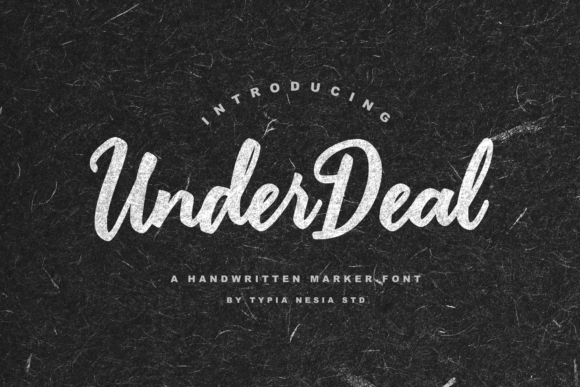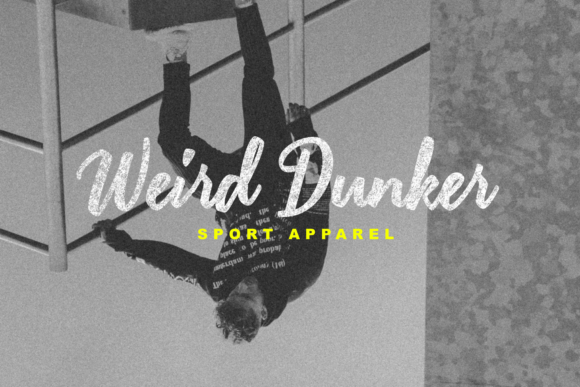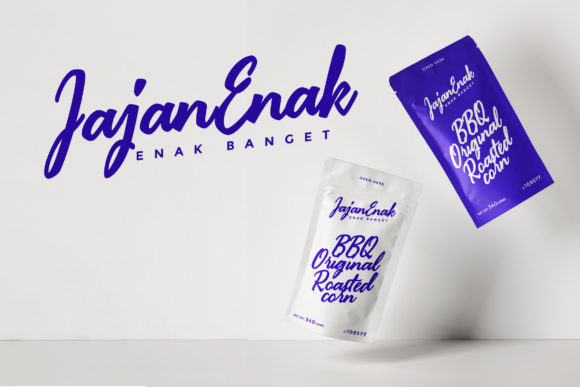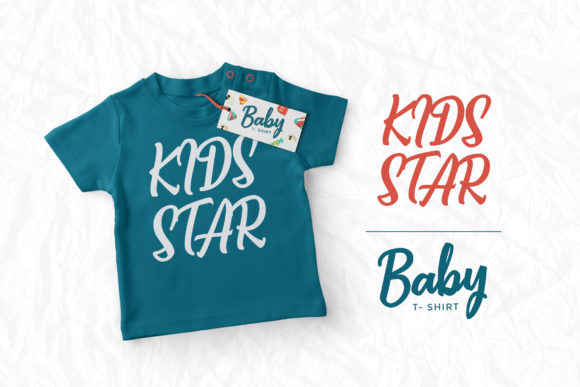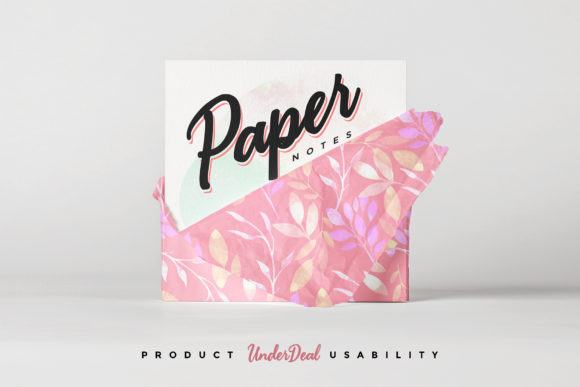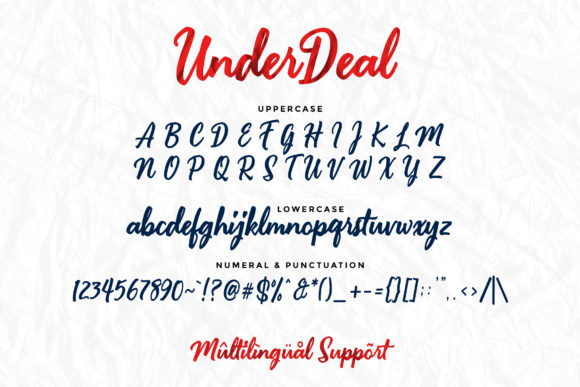
HomeScript FontsUnder Deal Font Script Fonts Under Deal Font FacebookXPinterestWhatsApp Under Deal Font Poster 2 Under Deal Font Poster 3 Under Deal Font Poster 4 Under Deal Font Poster 5 Under Deal Font Poster 6 About Under Deal Font Under Deal is a handwritten typeface with flowing curves. Get inspired by its contemporary appearance! DOWNLOAD ON CREATIVE FABRICAThis font is sold and delivered by Creative Fabrica. Font Canyon may earn a commission if you buy through this link. People also explored Rattoney Font Bouncy Love Font Pable Font Dream Orphanage Brown out Font Croneman Font Jonathan Font Today Easter Font Monogram Spring Gnome Font 363 0 TagsUnder Deal Font Previous articleOh Snappy! FontNext articleAsalarees Font LEAVE A REPLY Cancel reply Comment: Please enter your comment! Name:* Please enter your name here Email:* You have entered an incorrect email address! Please enter your email address here Website: Save my name, email, and website in this browser for the next time I comment. Personal Use Free Bestlife Personal Use Free Read more about this font Bebas Neue Font Personal Use Free Read more about this font Fuixg Personal Use Free Read more about this font Cottage Personal Use Free Read more about this font BLOG Modern Sans-Serif Fonts That Brands Love in 2025 In 2025, modern sans-serif fonts remain a top choice for brands looking to project clarity, professionalism, and... How to Cut Any Font on Cricut: Convert a Font to SVG (Free) Exploring Font Trends To increase your work productivity, choose the most readable fonts.